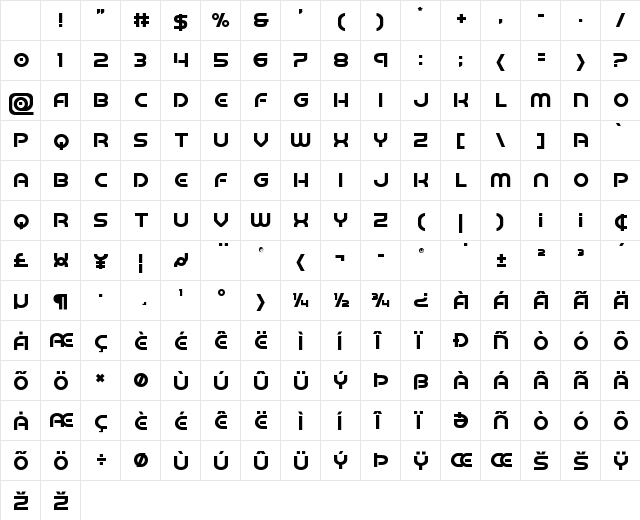
Complete Barcade No Bar Regular glyph index. Displaying only characters natively supported by Barcade No Bar Regular font.
Barcade No Bar is a composed and adaptable typeface that performs quietly and consistently across a wide range of design contexts.